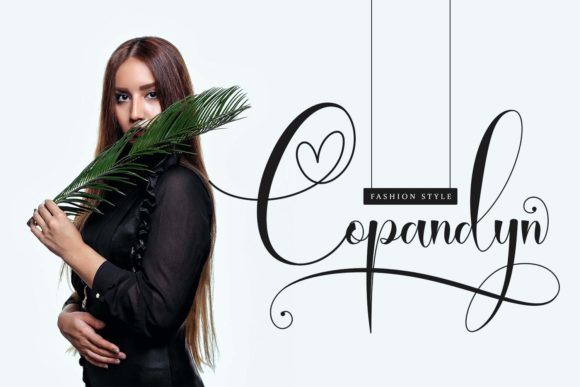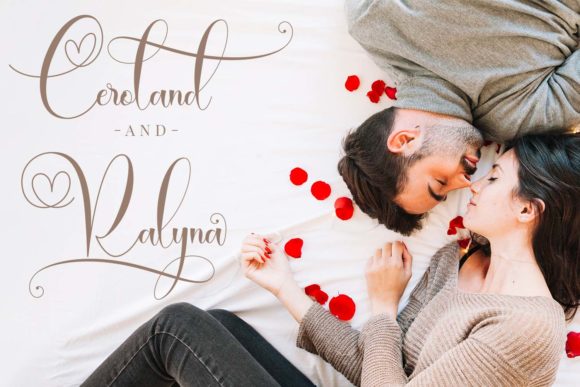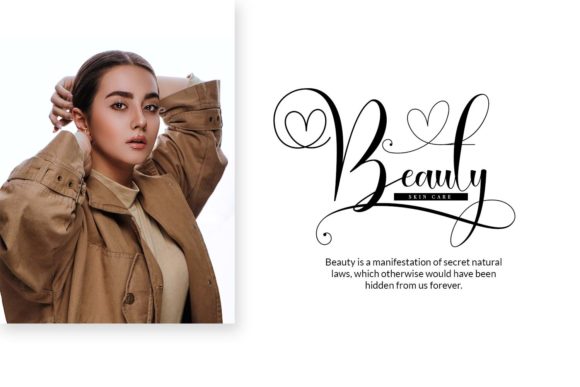
Introduction to Brilganttyne Font
Brilganttyne is a sweet, soft hand-lettered handwritten font.
Fall in love with its authentic feel and use it to create gorgeous wedding invitations, beautiful stationary art, eye-catching social media posts, and cute greeting cards .
Why Choose Brilganttyne Font?
Brilganttyne Font offers exceptional quality and versatility, making it a valuable addition to your design toolkit. Whether you’re creating for personal projects or commercial use, Brilganttyne Font delivers professional results.